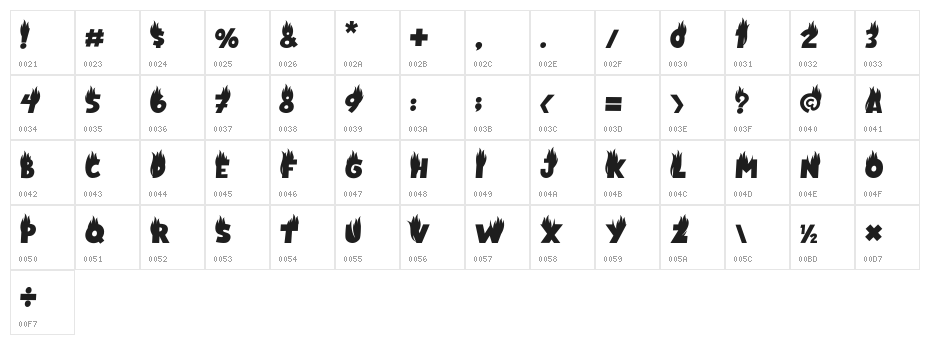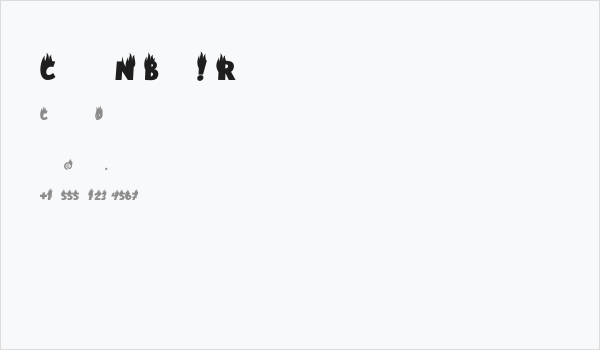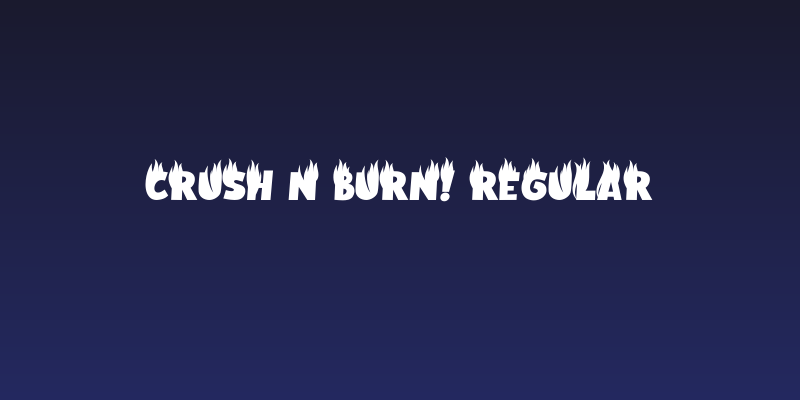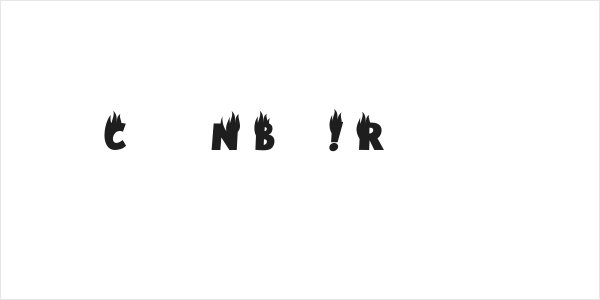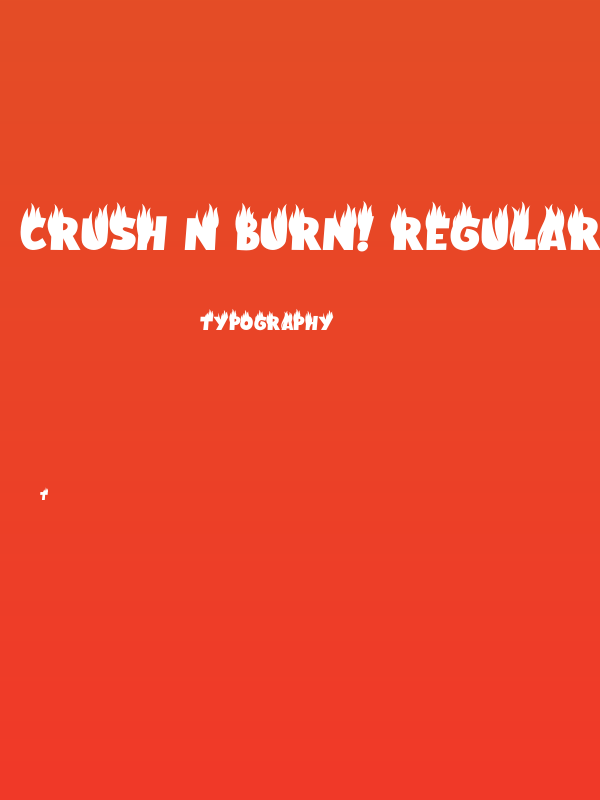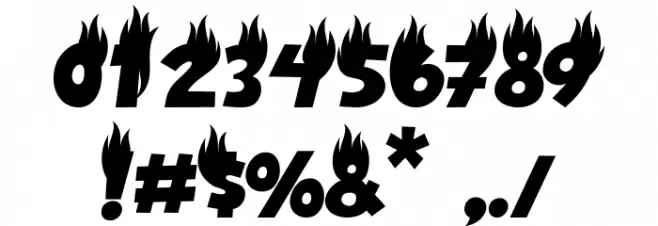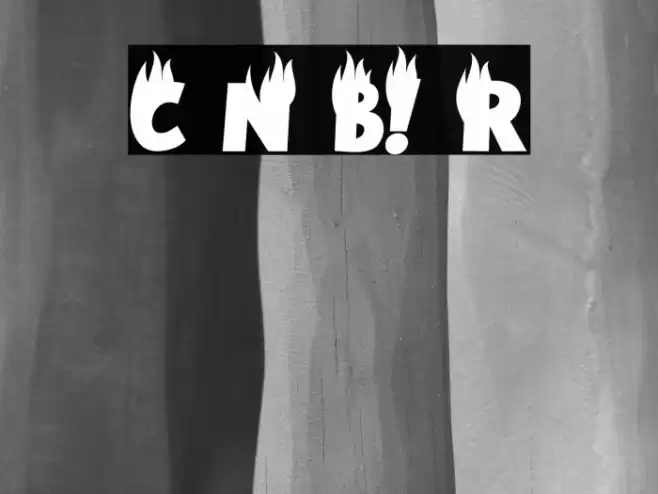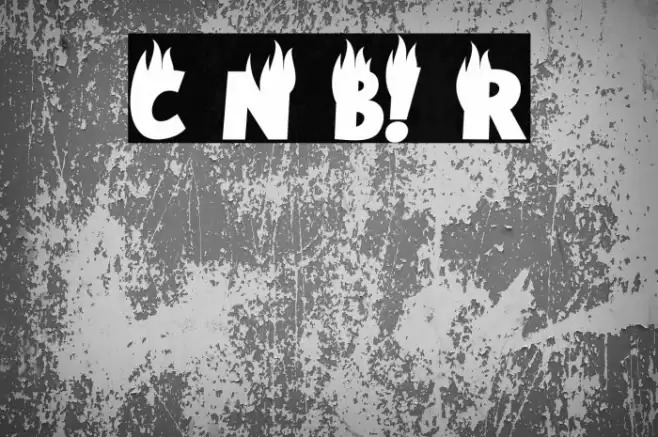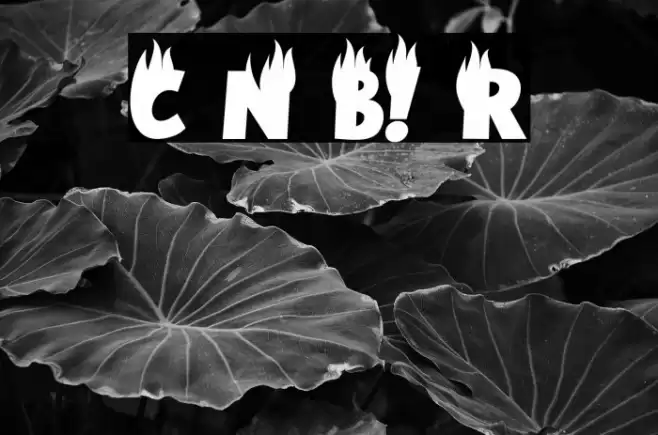
Crush N Burn! Regular Font
This font exudes a bold and fiery personality, with each character adorned with flame-like accents that give it a dynamic and energetic appearance. The uppercase and lowercase letters maintain a consistent style, with thick strokes and sharp edges that enhance its dramatic flair. The numbers and special characters follow the same theme, ensuring a cohesive look across all text elements. This font is perfect for projects that require a strong visual impact and a sense of intensity or excitement.
| Proposed Projects | Ideal for event posters, music album covers, video game titles, or any project needing a fiery and intense visual impact. |